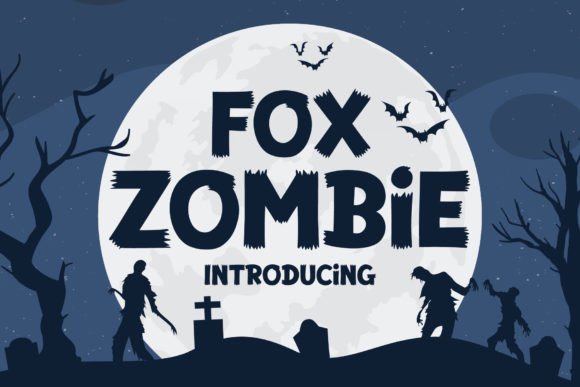
Unleashing Your Inner Creativity with the Fox Zombie Font
Do you remember the feeling of rummaging through your grandparents’ attic, discovering old trunks filled with forgotten treasures and dusty decorations? For many of us, this experience sparks our imagination and fuels our creativity. As designers, we’re always on the lookout for unique elements to bring our ideas to life. This is where the Fox Zombie Font comes in – a fun and quirky display font that’s perfect for adding a touch of whimsy to your designs.
Whether you’re working on a Halloween-themed project or a children’s book, the Fox Zombie Font is an excellent choice. Its versatility and playful nature make it a valuable asset for designers looking to add some personality to their work. With its wide range of applications, from logos to website headers, the Fox Zombie Font is an essential tool for any creative project.
Fox Zombie Font Key Features
- Font Family: Fox Zombie
- Unique Characteristics: Distressed, zombie-inspired font with a distressed, hand-drawn look and feel; perfect for horror, sci-fi, and fantasy designs
- Font Style: Available in Regular and Bold weights
Designer Review: Fox Zombie Font
Overall, I have mixed feelings about the Fox Zombie Font. While it has its quirks, it also offers some unique and interesting characteristics that make it stand out. ✨
- The font’s eccentric design, with its irregular shapes and mismatched forms, creates a sense of playfulness and whimsy that can be perfect for projects with a quirky or humorous tone.
- The font’s varying line widths and irregular letterforms add visual interest and create a sense of depth, making it more engaging than a standard, uniform font.
- ⚠️ The font’s irregular design can make it challenging to read, particularly in longer blocks of text or at smaller font sizes.
- ⚠️ The font’s inconsistent line widths and letterforms can also make it difficult to pair with other fonts or design elements, limiting its versatility.
While the Fox Zombie Font has its limitations, its unique design and playfulness make it a great choice for projects that require a lighthearted or humorous tone. However, it may not be the best choice for projects that require clear, easy-to-read text or a more formal tone.
Use Fox Zombie Font for: horror-themed designs, zombie-themed parties, Halloween decorations, and more.
For best results, use Fox Zombie Font in bold or italic styles to add emphasis to your design.